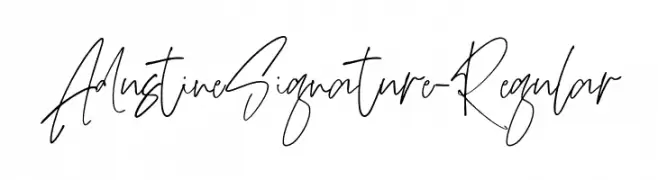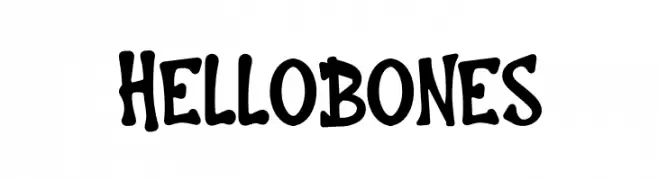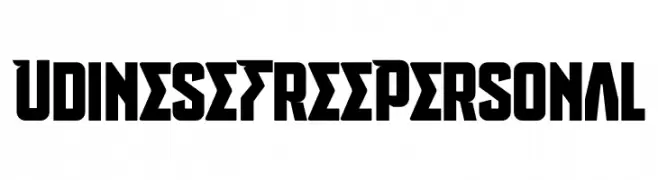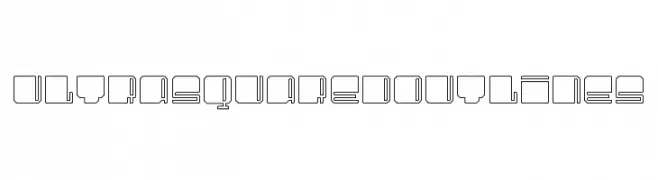
A futuristic, geometric outline font with a modern and edgy design.
A bold, geometric font with a distinctive inline style, ideal for modern and impactful designs.
A bold, geometric font with sharp angles and a modern aesthetic.
Handwritten cursive script font.
Tall, narrow, and minimalist font.
Playful handwritten script font.
Handwritten script font with elegant, flowing lines.
A bold, hand-drawn font with bone-inspired, whimsical shapes.
A bold, geometric font with sharp angles and a futuristic style.
A bold, oblique font with strong, angular lines and a modern, dynamic style.